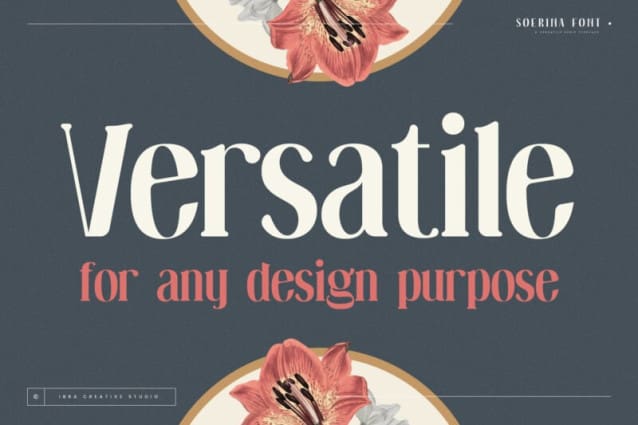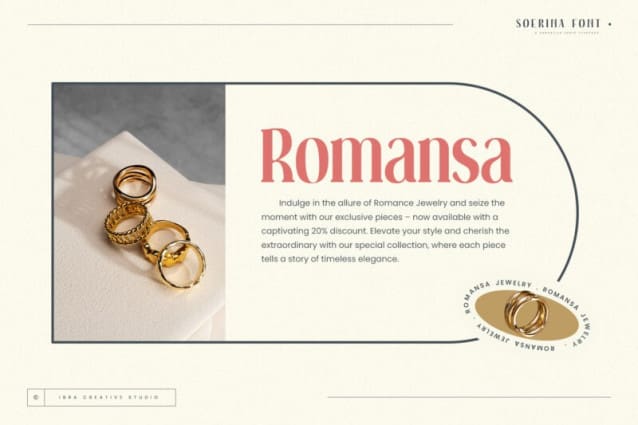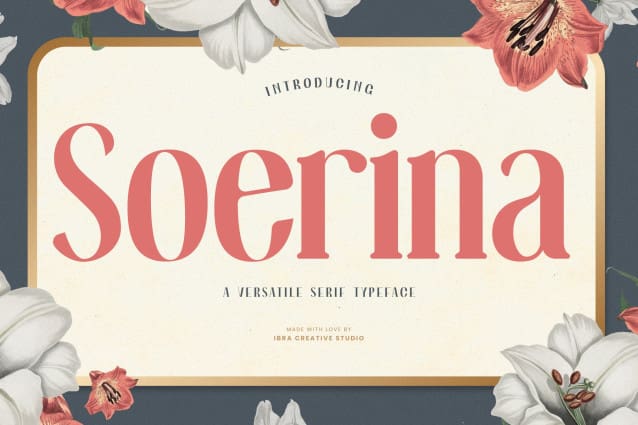
Soerina Font
Soerina Font, a versatile serif typeface, embodies a harmonious blend of classic elegance and contemporary functionality. With its meticulously crafted letterforms, Soerina strikes a balance between sophistication and readability, making it suitable for a diverse range of design applications. The typeface exhibits a timeless aesthetic, featuring subtly modulated serifs that lend a touch of refinement to each character. Whether used for editorial design, branding, or digital interfaces, Soerina Font exudes a versatile charm, adapting seamlessly to various contexts while maintaining a distinct personality. Its balanced proportions and thoughtful details make it an excellent choice for conveying a sense of professionalism and aesthetic nuance across a spectrum of visual communication projects.